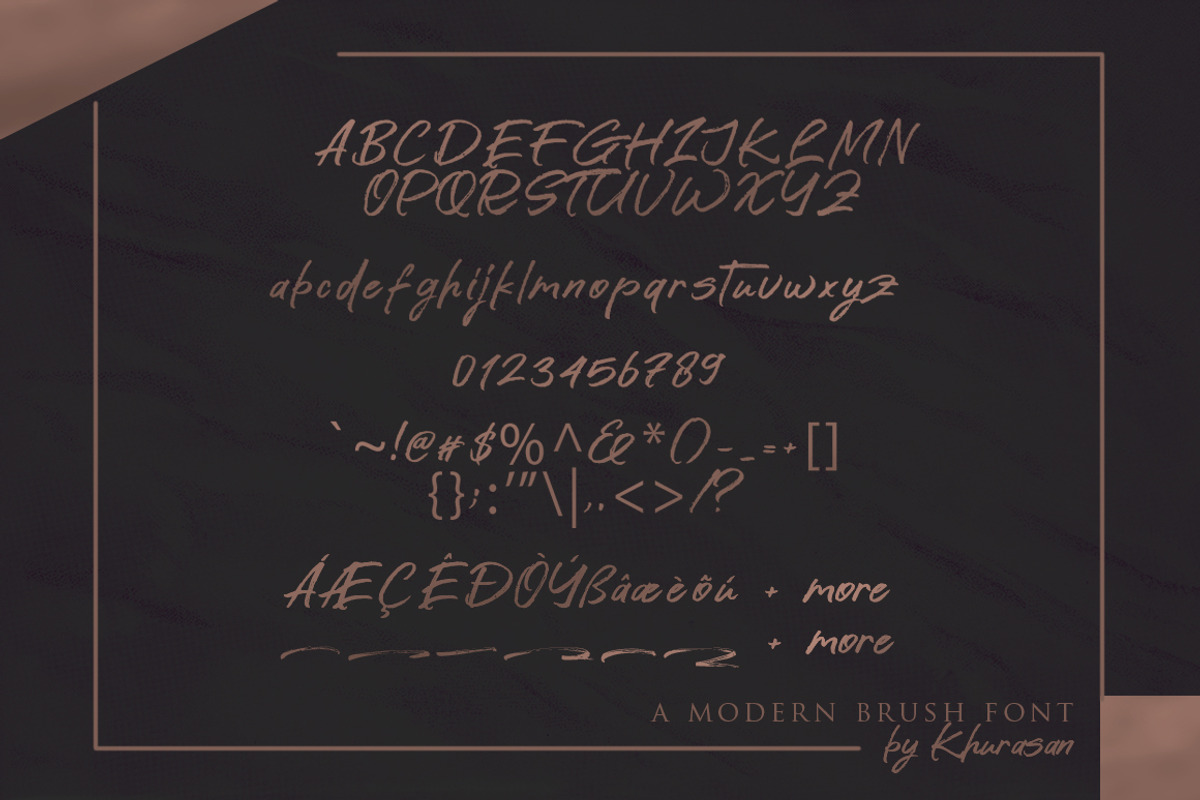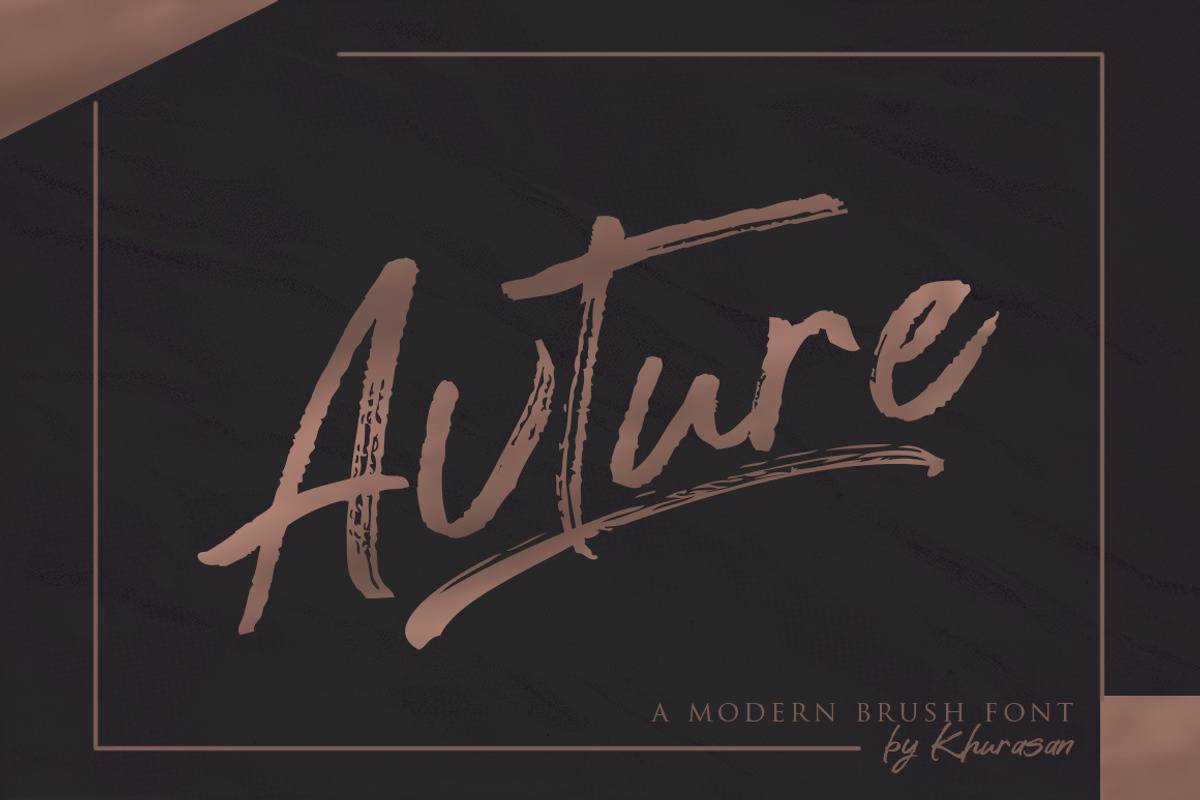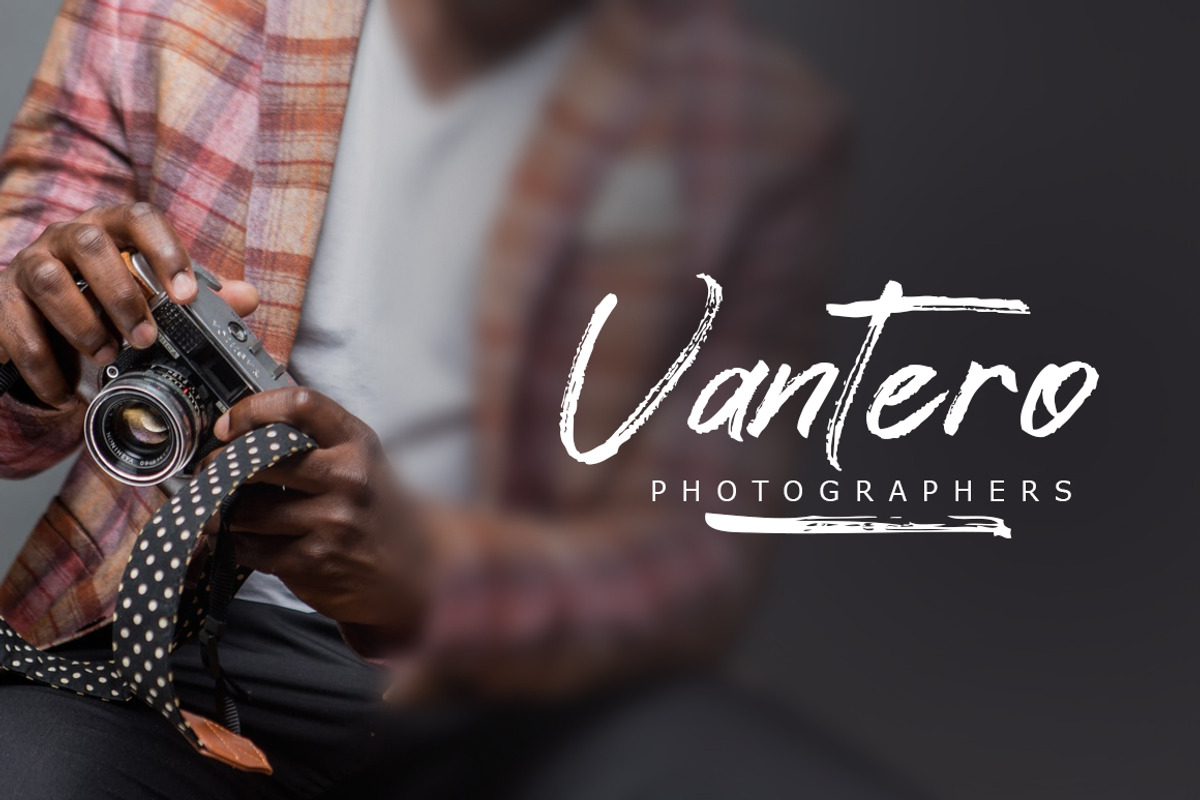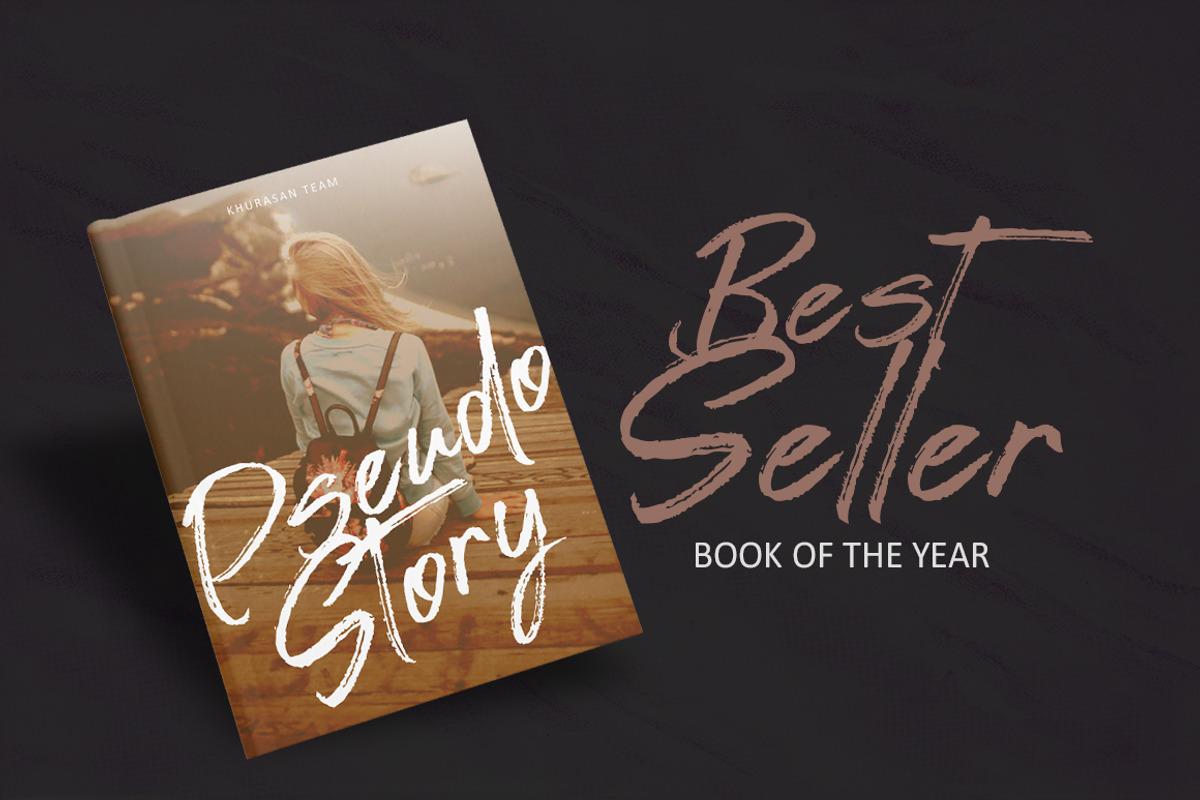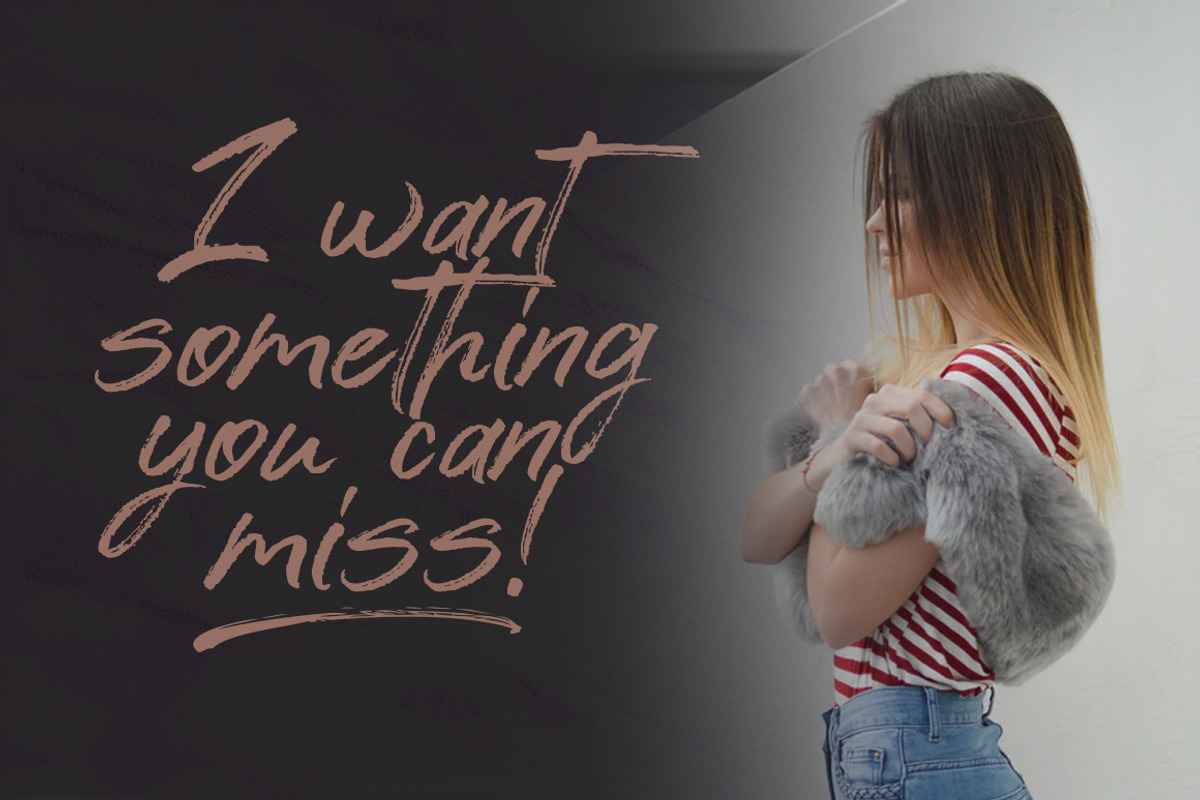
Avture Brush
Introducing Avture Typeface - a font that is very fresh and unique style handmade. Avture Typeface is perfectly suited to logo, stationery, poster, apparel, branding, wedding invitation, card, tagline, layout design, and much more !!
- Punctuation & Numeral
- Support Multilingual